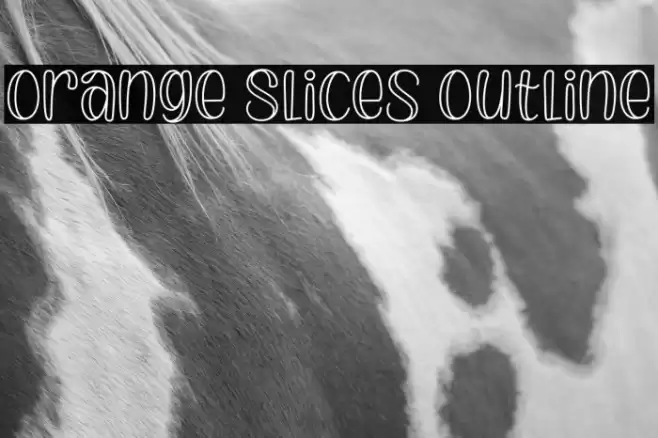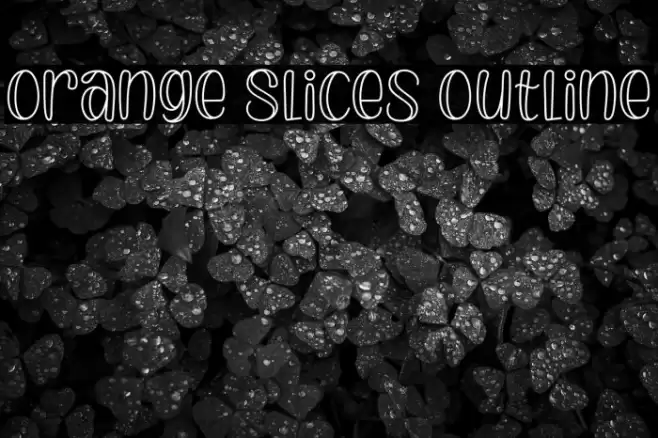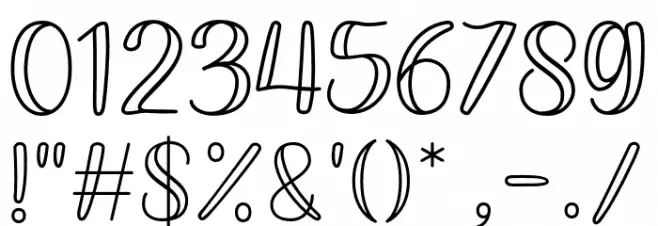
Orange Slices Outline Font
Orange Slices Outline Description
This playful and whimsical font features an outline style that gives each character a light and airy feel. The letters are rounded and slightly irregular, adding a sense of fun and creativity. The uppercase and lowercase letters maintain a consistent style, with smooth curves and a hand-drawn appearance. Numbers and special characters follow the same design, making the font versatile for various uses. Its unique outline design makes it stand out, perfect for projects that require a touch of personality and flair.
A playful, outline-style font with a whimsical, hand-drawn appearance from Regular fonts.
- Proposed Projects: Ideal for children's books, playful branding, greeting cards, and creative posters.
- Overall Style: Whimsical, Playful
- Use Case: Headlines, Logos, Creative projects